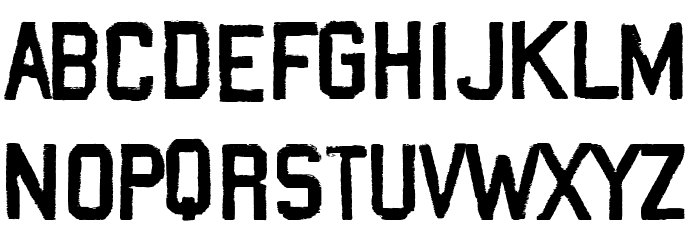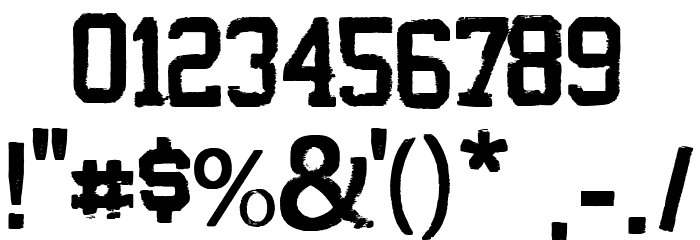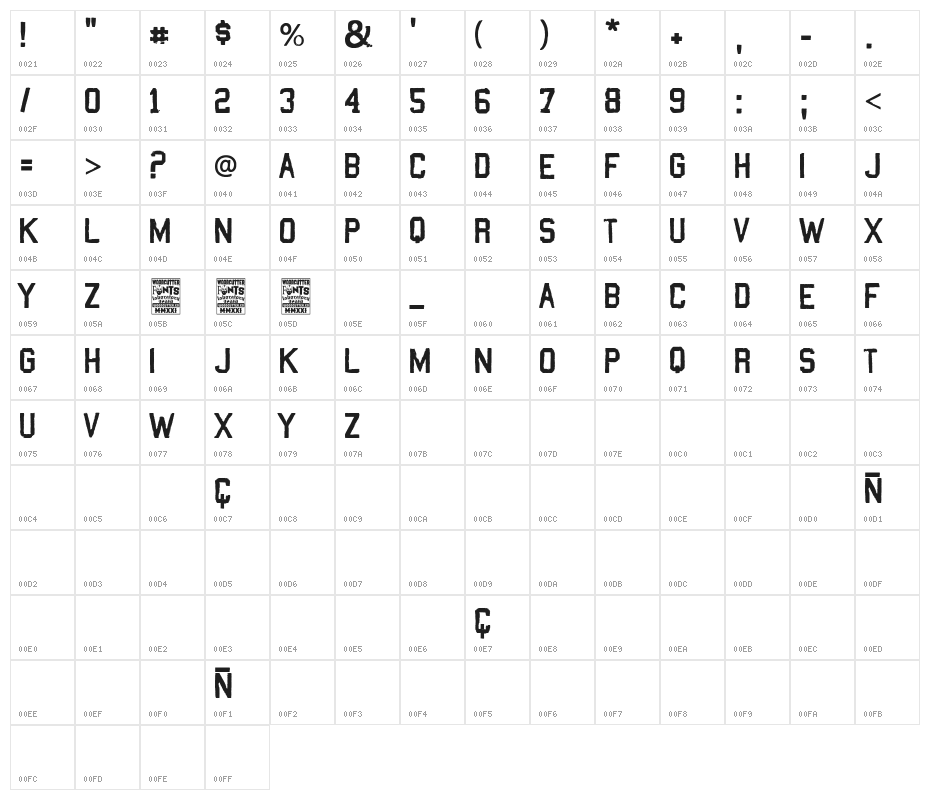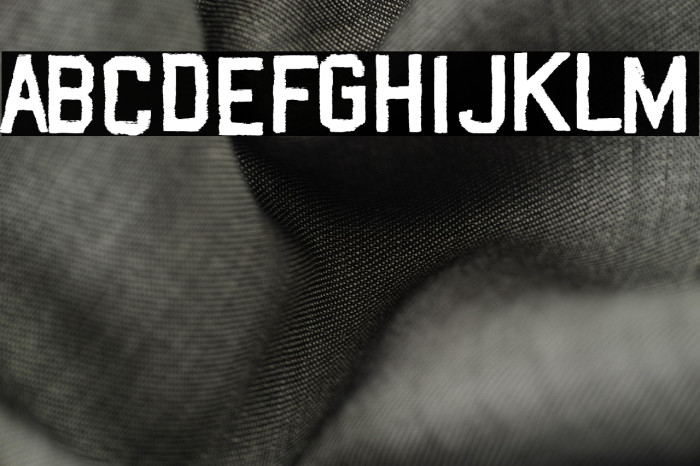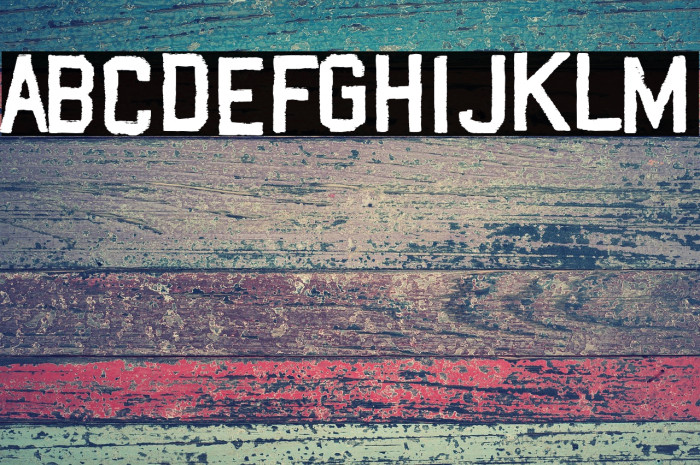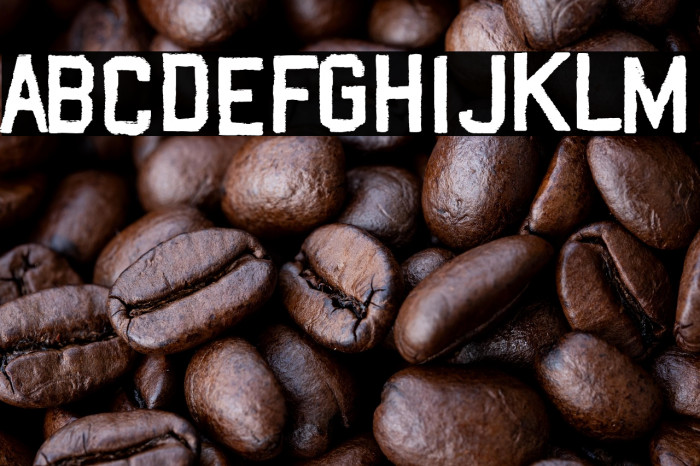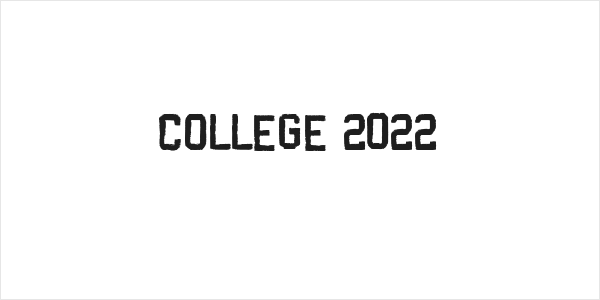
College 2022 Font
This font features a bold and rugged design with a distressed, textured appearance that gives it a vintage, worn-out look. The uppercase letters are prominent and sturdy, while the lowercase letters maintain a consistent style. Numbers and special characters follow the same aesthetic, providing a cohesive look throughout. The font's rough edges and uneven strokes add character and a sense of authenticity, making it ideal for projects that require a strong, impactful visual presence. Its unique style is reminiscent of old-school athletic or collegiate themes, perfect for creating eye-catching headlines or logos.
A bold, textured font with a vintage, distressed style.
- Font: College 2022
- Proposed Projects: Ideal for sports-themed designs, vintage posters, logos, and headlines.
- Overall Style: Vintage